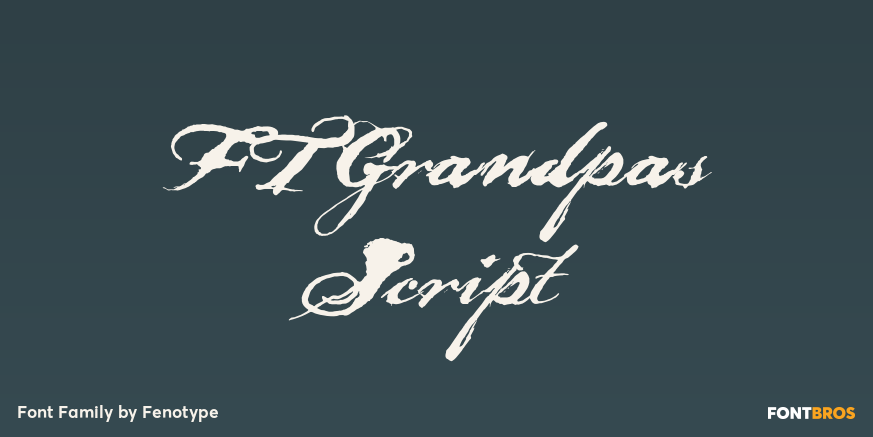
HomeFont BrosDistressedFT Grandpas Script DistressedScripts: CasualScripts: FormalUrbanHandwritten FT Grandpas Script FacebookXPinterestWhatsApp 1 of 1 About FT Grandpas Script is a blotted and hand-drawn joined script font.  DOWNLOAD NOW People also explored Rabonnus Celinya Font Ballet Star Font TuningCar Font Dugtane Font Bestina Font Heigh Lovely Font Rihana Font Work Line Font 289 0 TagsFT Grandpas Script Font Previous articleWintanceastreNext articleBugbear LEAVE A REPLY Cancel reply Comment: Please enter your comment! Name:* Please enter your name here Email:* You have entered an incorrect email address! Please enter your email address here Website: Save my name, email, and website in this browser for the next time I comment. Personal Use Free Harshita Personal Use Free Read more about this font Mama Personal Use Free Read more about this font Larosh Sithal Duo Personal Use Free Read more about this font 1980 Portable Personal Use Free Read more about this font BLOG Free Fonts Risk: Why Free Fonts Can Be Dangerous for Designers Free Fonts Risk: Why Free Fonts Can Be Dangerous for Designers Using free fonts is a common practice in web and graphic design. However, the... Where to Buy American Fonts Online in 2024 Top 7 Google Fonts Alternatives for Faster and Privacy-Friendly Web Design (2025) Transform Your Website: Elevate Your Typography with 7 Best Web Font Generators